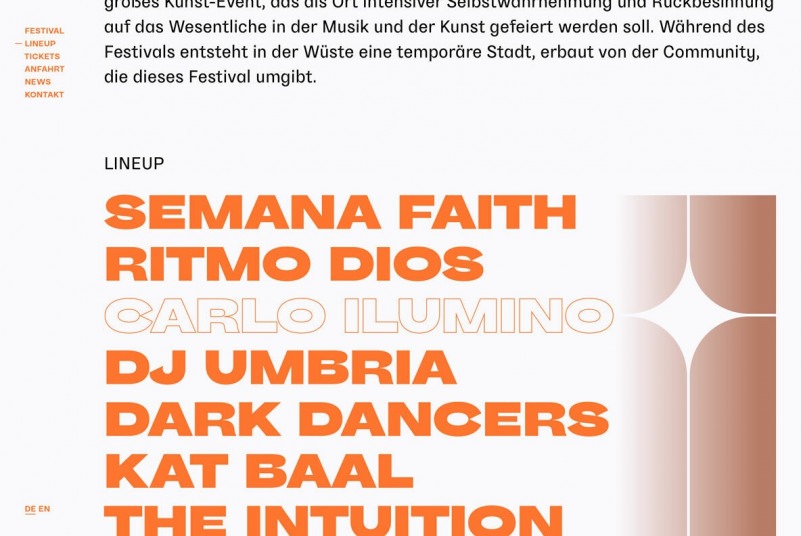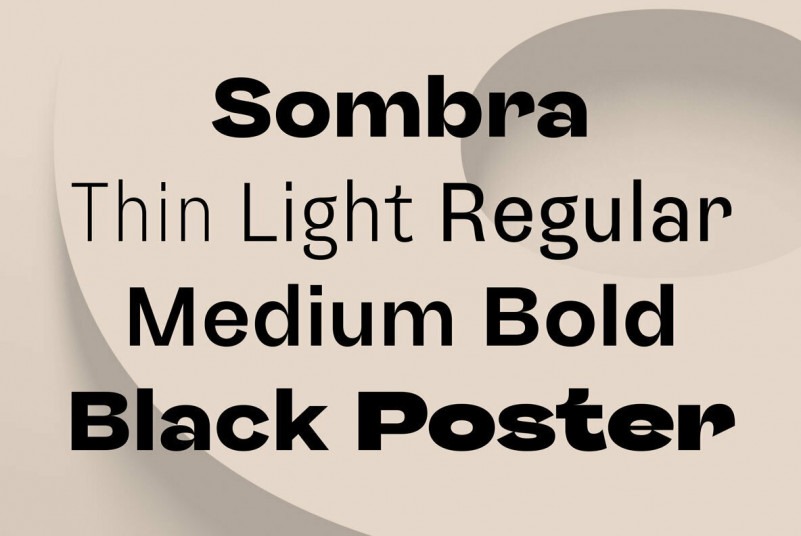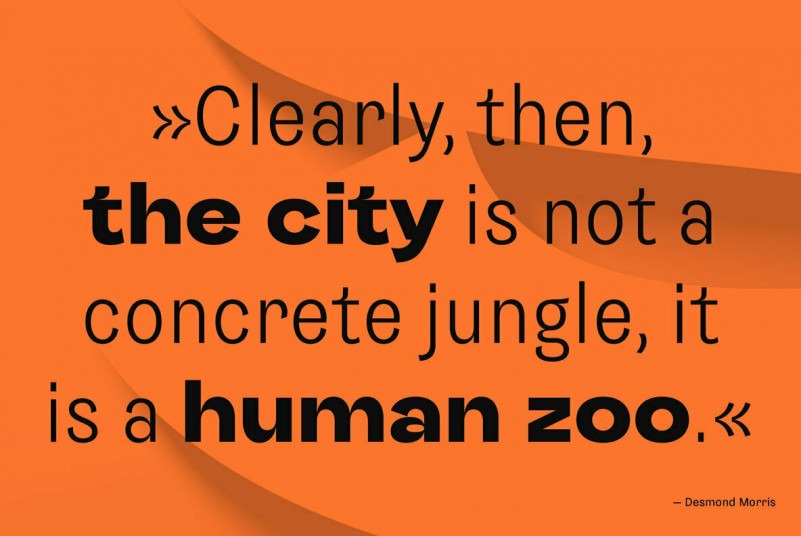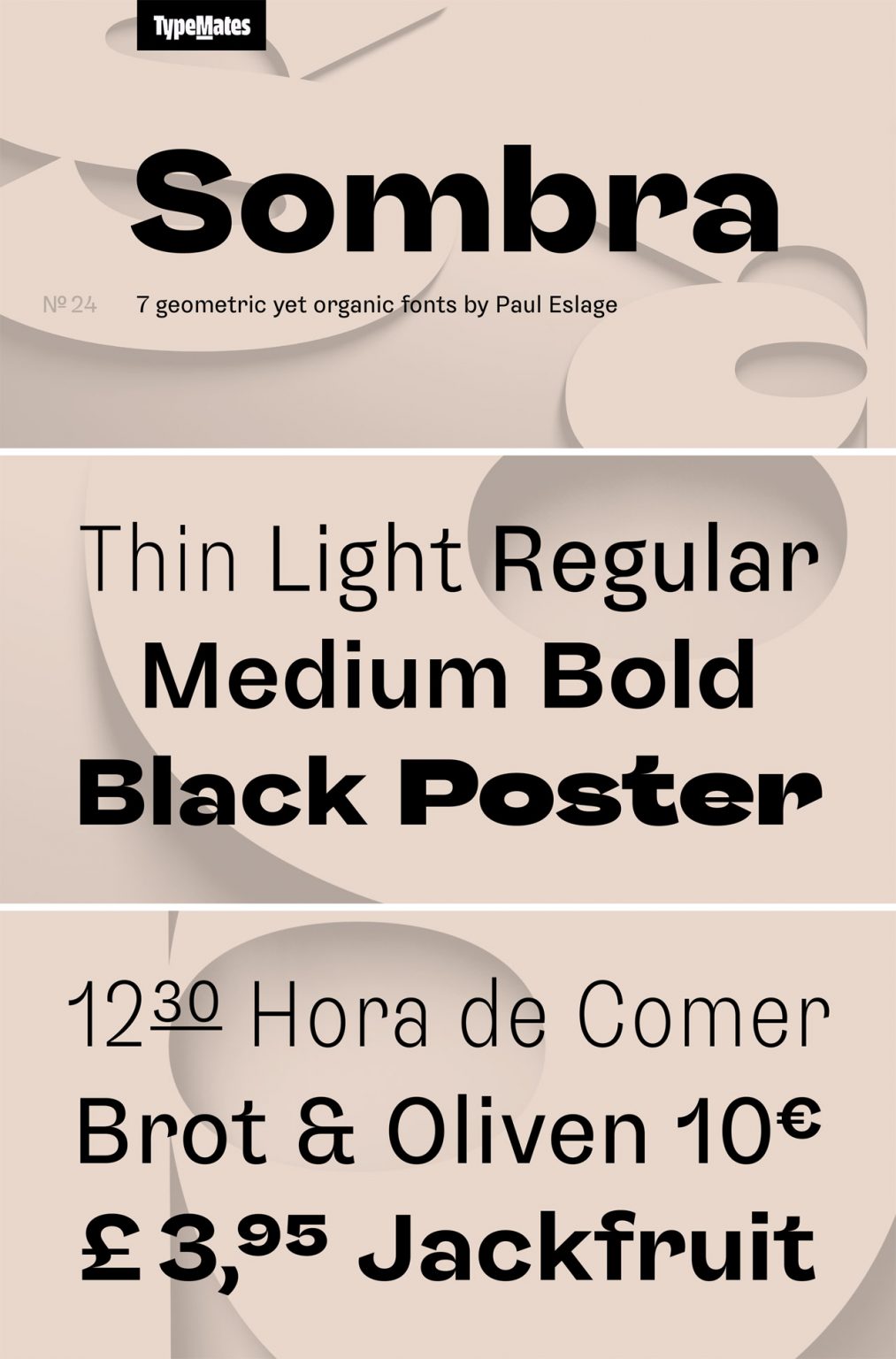
Sombra Font Download . Sombra is an organic grotesque typeface with flourishing spirit. Sombra is an organic grotesque typeface with flourishing spirit. Designed by paul eslage and published just recently by foundry typemates in 2020, sombra is an organic sans serif font family with a flourishing dynamic style. It combines geometric structure with leafy, sharply. This font is a modern sans serif family from typemates that blends old and new generation sans serif fonts in the same pot. It combines a basic geometric. Sombra sans serif font only available for personal use. Combining geometric design with leafy attributes such as soaring strokes and exaggerated cuts, sombra exhibits both natural momentum. So, if you want to access more full features and license of this font, go get the premium version as well. It combines geometric structure with leafy, sharply swelling. Download sombra font sombra is an organic grotesque typeface with flourishing spirit. It combines geometric structure with leafy, sharply swelling strokes and. Fontstand allows trying sombra typeface for free or renting it for just a fraction of the regular price.
So, if you want to access more full features and license of this font, go get the premium version as well. Combining geometric design with leafy attributes such as soaring strokes and exaggerated cuts, sombra exhibits both natural momentum. This font is a modern sans serif family from typemates that blends old and new generation sans serif fonts in the same pot. Sombra is an organic grotesque typeface with flourishing spirit. Sombra sans serif font only available for personal use. It combines geometric structure with leafy, sharply swelling. Fontstand allows trying sombra typeface for free or renting it for just a fraction of the regular price. Designed by paul eslage and published just recently by foundry typemates in 2020, sombra is an organic sans serif font family with a flourishing dynamic style. Download sombra font sombra is an organic grotesque typeface with flourishing spirit. It combines a basic geometric.
Sombra Font Download It combines geometric structure with leafy, sharply swelling. Sombra is an organic grotesque typeface with flourishing spirit. Sombra is an organic grotesque typeface with flourishing spirit. Fontstand allows trying sombra typeface for free or renting it for just a fraction of the regular price. Download sombra font sombra is an organic grotesque typeface with flourishing spirit. It combines geometric structure with leafy, sharply. It combines a basic geometric. It combines geometric structure with leafy, sharply swelling strokes and. So, if you want to access more full features and license of this font, go get the premium version as well. Sombra sans serif font only available for personal use. This font is a modern sans serif family from typemates that blends old and new generation sans serif fonts in the same pot. Designed by paul eslage and published just recently by foundry typemates in 2020, sombra is an organic sans serif font family with a flourishing dynamic style. Combining geometric design with leafy attributes such as soaring strokes and exaggerated cuts, sombra exhibits both natural momentum. It combines geometric structure with leafy, sharply swelling.
Sombra font free download for WEB Sombra Font Download It combines geometric structure with leafy, sharply swelling. Sombra is an organic grotesque typeface with flourishing spirit. It combines geometric structure with leafy, sharply. This font is a modern sans serif family from typemates that blends old and new generation sans serif fonts in the same pot. Combining geometric design with leafy attributes such as soaring strokes and exaggerated cuts,. Sombra Font Download.
Sombra Font Family Download Free Font Sombra Font Download Combining geometric design with leafy attributes such as soaring strokes and exaggerated cuts, sombra exhibits both natural momentum. Designed by paul eslage and published just recently by foundry typemates in 2020, sombra is an organic sans serif font family with a flourishing dynamic style. It combines geometric structure with leafy, sharply. Sombra sans serif font only available for personal use.. Sombra Font Download.
Shadow Font Shadow Script Font Drop Shadow Font Letters With Shadow Sombra Font Download Sombra sans serif font only available for personal use. It combines geometric structure with leafy, sharply swelling strokes and. It combines a basic geometric. So, if you want to access more full features and license of this font, go get the premium version as well. Combining geometric design with leafy attributes such as soaring strokes and exaggerated cuts, sombra exhibits. Sombra Font Download.
Sombra 001.000 Fonts Free Download Sombra Font Download Designed by paul eslage and published just recently by foundry typemates in 2020, sombra is an organic sans serif font family with a flourishing dynamic style. This font is a modern sans serif family from typemates that blends old and new generation sans serif fonts in the same pot. Sombra is an organic grotesque typeface with flourishing spirit. Download sombra. Sombra Font Download.